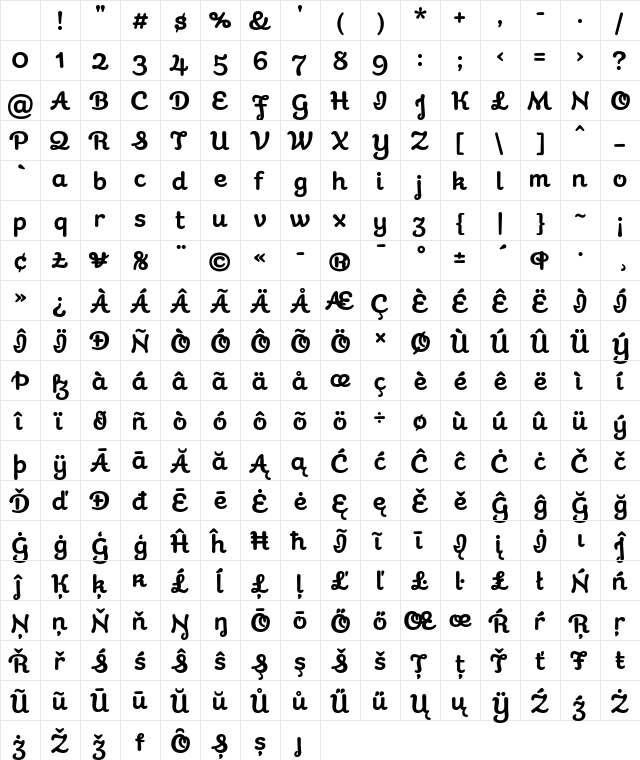
Complete Galaxie Cassiopeia Basic Bold glyph index. Displaying only characters natively supported by Galaxie Cassiopeia Basic Bold font.
Galaxie Cassiopeia Basic is a composed and adaptable typeface that performs quietly and consistently across a wide range of design contexts. Its bold stroke weight gives it real presence on the page.